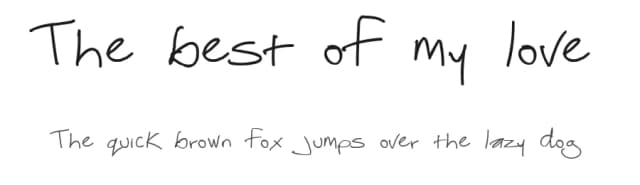
About Charanga Font
Charanga is a script & handwritten font designed by Andres Benjumea. It includes 184 glyphs, a medium weight, TTF (TrueType) format, and 191 languages. Charanga is free to download; check the license details on this page before commercial use. Script & handwritten fonts like Charanga work best for wedding invitations, greeting cards, signatures, and elegant branding.
Charanga Font is a script font that shines as a display or heading face. Pair it with a clean sans-serif or serif font for body text β the contrast creates a clear hierarchy while the two styles stay balanced and easy to read.
Charanga Font
Charanga Font is a script handwritten typeface by Andres Benjumea, ideal for logos, invitations, branding, and creative projects.